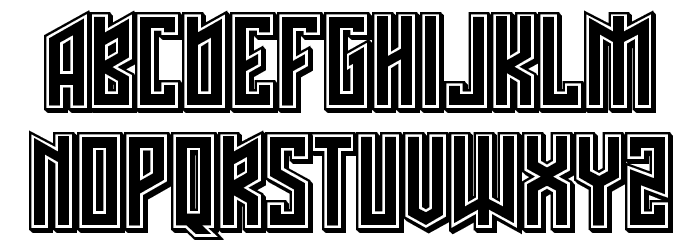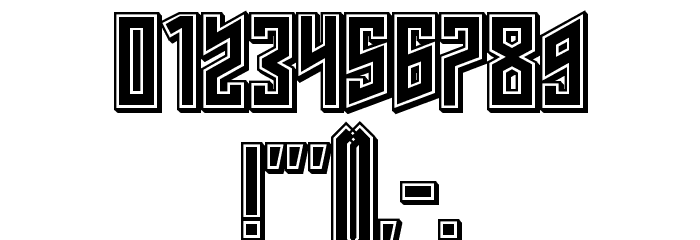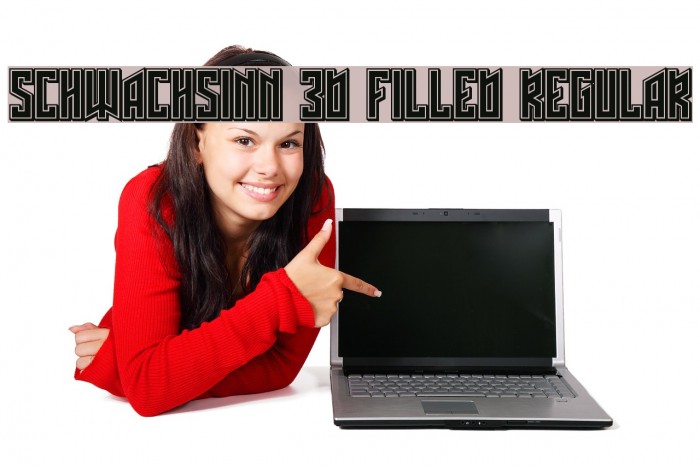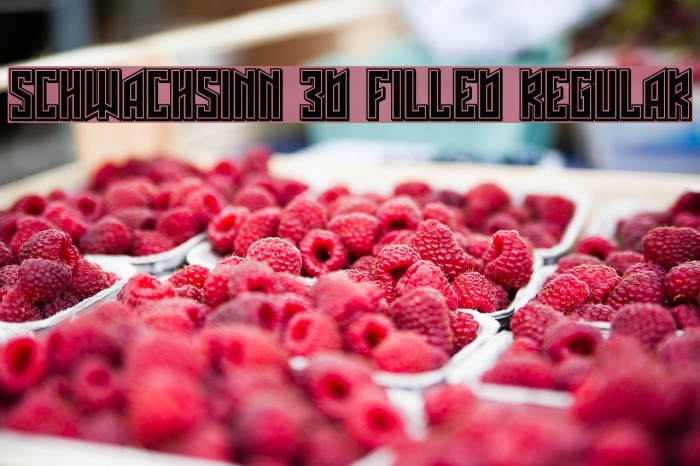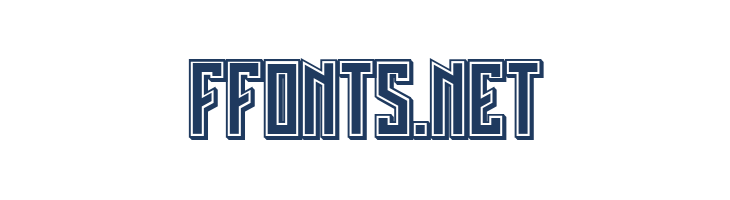
Schwachsinn 3D Filled Regular Font
This font features a bold, three-dimensional design with a filled interior and a strong outline, creating a striking visual effect. The characters are uppercase and have a geometric, angular style that gives them a futuristic and dynamic appearance. The numbers and special characters follow the same design principles, ensuring consistency across the font. The bold outlines and filled interiors make it highly legible and eye-catching, suitable for impactful designs.
A bold, 3D geometric font with filled interiors and strong outlines.
- Proposed Projects: Ideal for posters, video game graphics, logos, and any project requiring a bold, futuristic look.